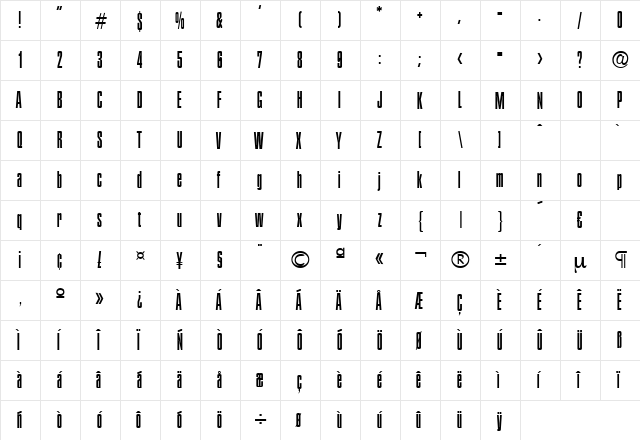
Plakette-Light Regular
Design Context for Plakette-Light Typeface
Plakette-Light takes a measured approach to typography — its balanced proportions and neutral character make it a reliable workhorse for both digital and print work. Its slender proportions lend an understated elegance to any composition.